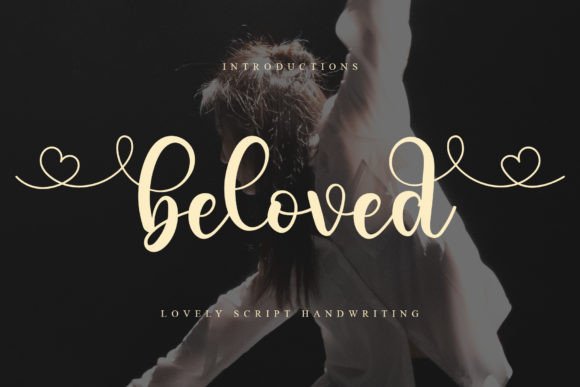
An Honest Review of Beloved Font
- ✨ Timeless Elegance: Beloved boasts a classic, sophisticated look that’s reminiscent of traditional calligraphy, yet feels refreshingly modern.
- ✅ Versatility: With its balanced and varied design, Beloved can be used for a wide range of projects, from wedding invitations to branding and advertising.
- 💫 Impeccable Form: The font’s attention to detail and precise craftsmanship make it a joy to work with.
- 🤔 Occasional Kerning Issues: As with any font, there may be instances where kerning doesn’t quite cooperate. A bit of manual adjustment can usually fix this.
- ⚠️ Not Ideal for Body Text: Due to its elegant, cursive nature, Beloved is best suited for headlines, titles, and short paragraphs rather than lengthy bodies of text.
The Story Behind Beloved Font
While the true origins of Beloved might be shrouded in mystery, it’s easy to imagine a designer with a passion for classic calligraphy and modern aesthetics crafting such a beautiful font. Perhaps they sought to create a typeface that would marry the elegance of the past with the versatility of the present. Whatever the inspiration, Beloved is undoubtedly a font that will leave a lasting impression.
| Is Beloved suitable for body text? | No, Beloved is best used for titles, headlines, and short paragraphs due to its elegant, cursive design. |
| Does Beloved support OpenType features? | Yes, Beloved supports OpenType features, allowing you to access a range of glyphs and stylistic alternates to enhance your design. |